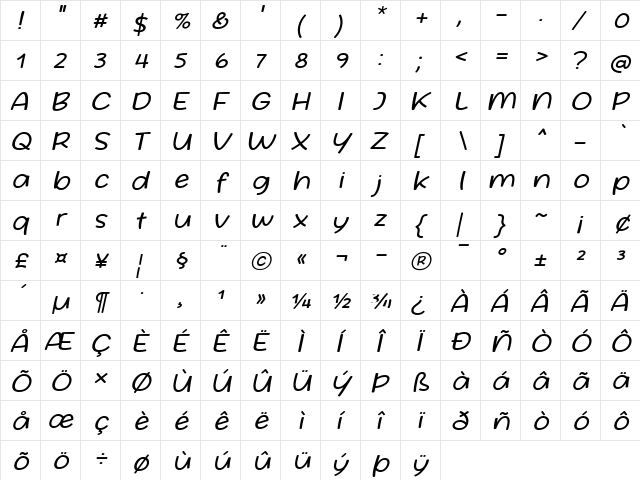
Friday October Twelve Italic
| Foundry | 7NTypes |
| Designer | Situjuh Nazara |
Design Context for Friday October Twelve Typeface
Friday October Twelve takes a measured approach to typography — its balanced proportions and neutral character make it a reliable workhorse for both digital and print work. The slanted form adds forward momentum and visual energy.
Pro Tip: Use Friday October Twelve for emphasis, pull quotes, and subheadings where its slanted energy can add rhythm to the layout.